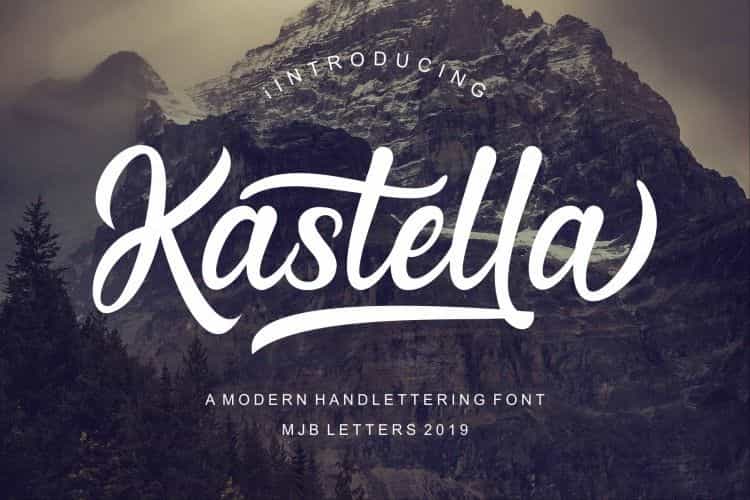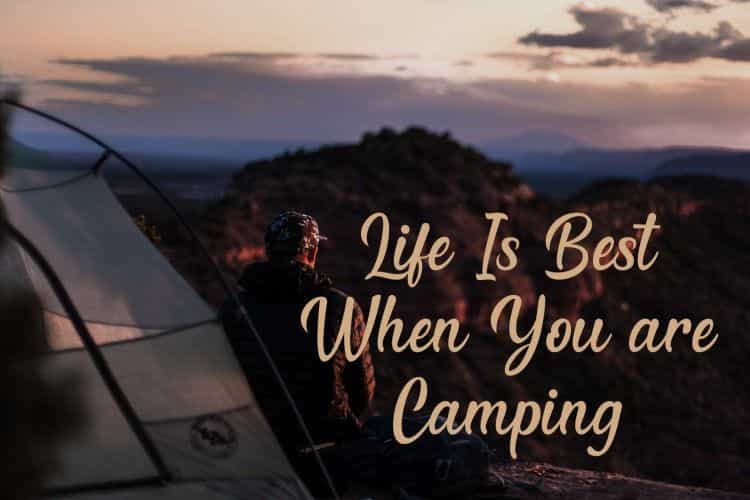
Presenting the new Kastella Font a beautiful piece of design. It is modern and feminine font, each letter has been designed in detail to make your texts look as beautiful as possible. With modern script style this font will perfect for many different project ex: photography, logo, quotation, blog, poster, marriage, branding, logo, fashion, clothing, letter, card, invitation and so on.